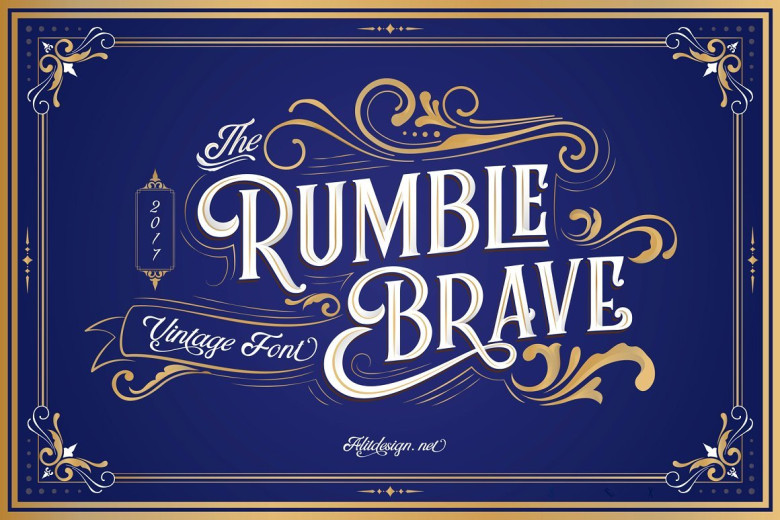
Rumble Brave Typeface
Hi there! Let me introduce Rumble Brave Typeface – with vintage style. RumbleBrave Font was designed by alit design. In this packages there are 3 types of letters serif, script and dingbat. The three font combinations he launched are now very compatible if for the victorian classic design concept. As for if the font was worn by itself, without combinations are also brave. Rumble Brave Typeface is perfect for beverage label design project. coffee label. logotype design, badges, classic wedding concept. victorian design concept and so on. gig poster, letterhead, droop cap, titles, and any artworks.